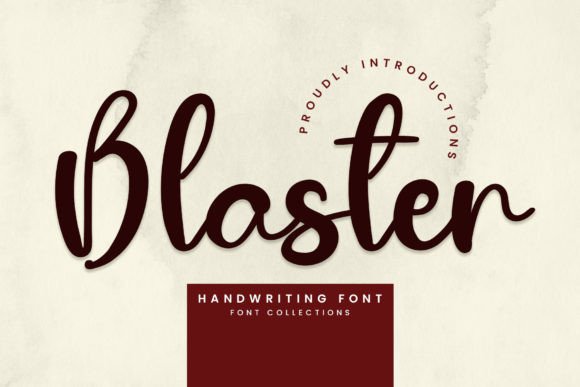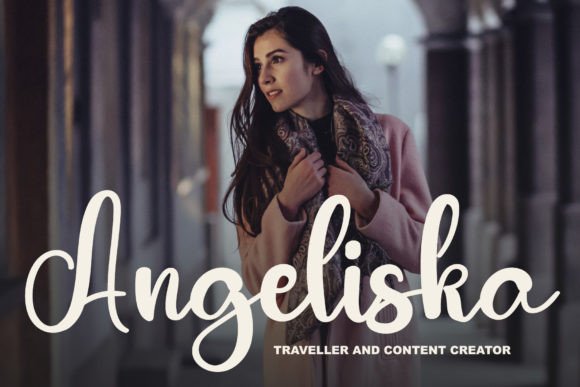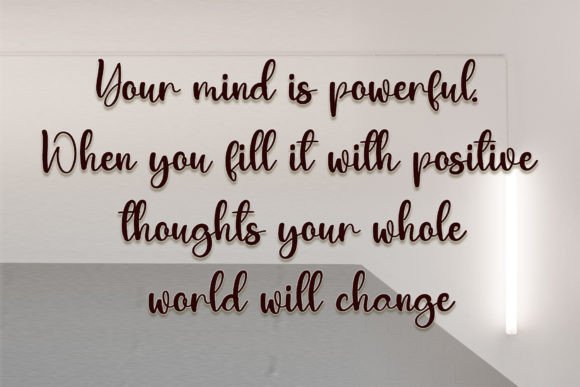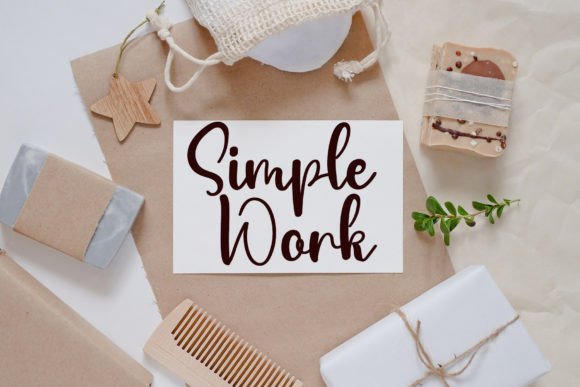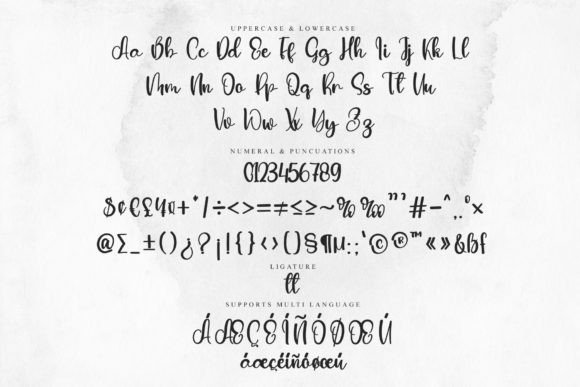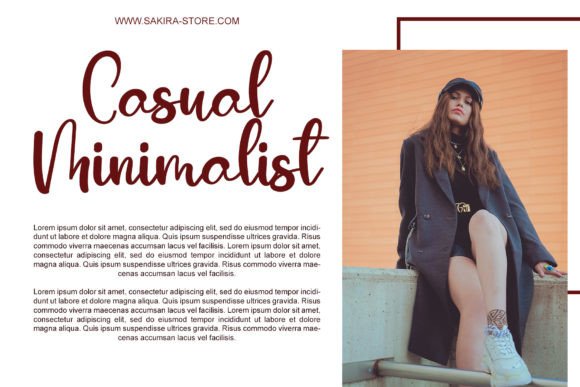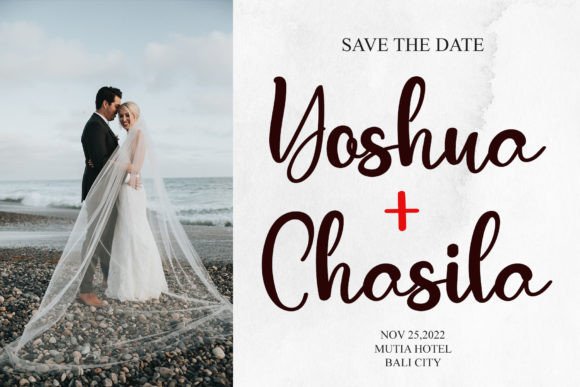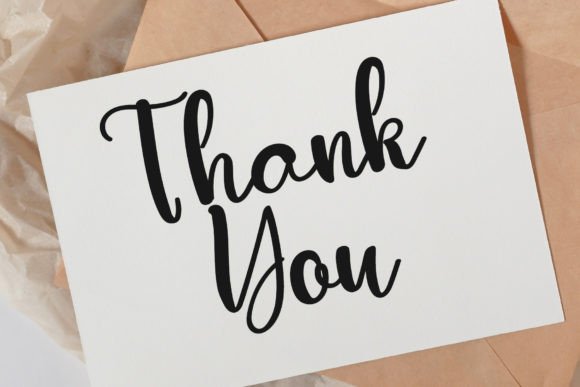
About Blaster Font
Blaster font download brings you a modern handwritten script that blends style with simplicity. Inspired by timeless classic calligraphy, this font adds a natural, elegant touch to any project. It features smooth, flowing strokes that make your text appear graceful and clean. Whether you need something for personal or professional use, this font adapts effortlessly.
What sets the Blaster font apart is its balanced and versatile form. While some fonts may appear too bold or overly stylized, Blaster remains refined and easy to read. That makes it ideal for a wide range of creative tasks. From wedding invitations to social media graphics, this font does more than just look good—it communicates your message with flair.
Moreover, it’s incredibly user-friendly. You don’t need to be a design expert to make it work. Just install, start typing, and enjoy how it transforms your ideas into something special. Because of its balanced design, it works well for both headlines and body text.
Not only does it suit formal occasions, but it also feels right at home in casual settings. For example, if you’re designing quote graphics or creating DIY prints, the Blaster font delivers just the right tone. And because it’s handwritten, each letter adds a personal touch—something digital fonts often lack.
When it comes to branding, Blaster font download is also a strong choice. It’s perfect for logo design, business cards, and packaging. In today’s market, standing out is essential, and this font can help your brand feel more approachable and memorable.
Because readability is key, every character in this font is thoughtfully crafted. As a result, your text remains easy to understand while still being visually appealing. This balance ensures that your audience stays engaged, whether they’re reading a social media post or a printed card.
In conclusion, if you’re looking for a typeface that’s both classy and versatile, the Blaster font is a great pick. Download it today to start creating with elegance and confidence. With its timeless charm and friendly flow, this font will quickly become your favorite go-to for many design projects.